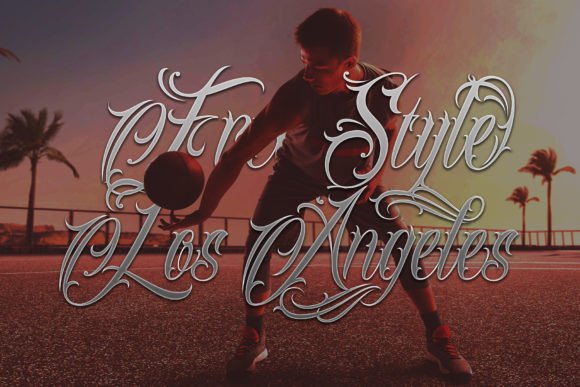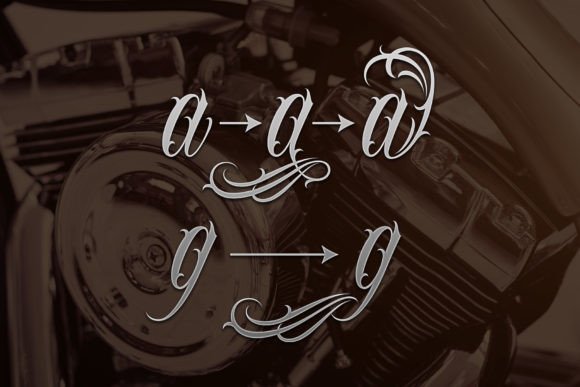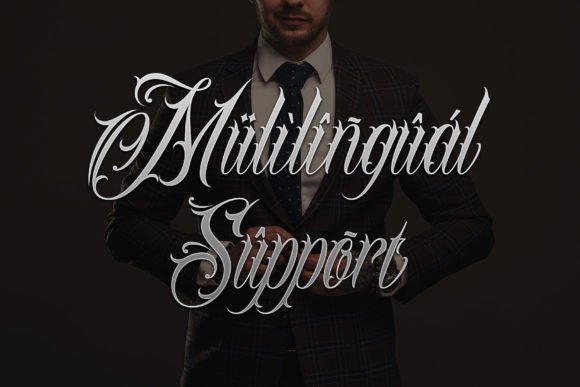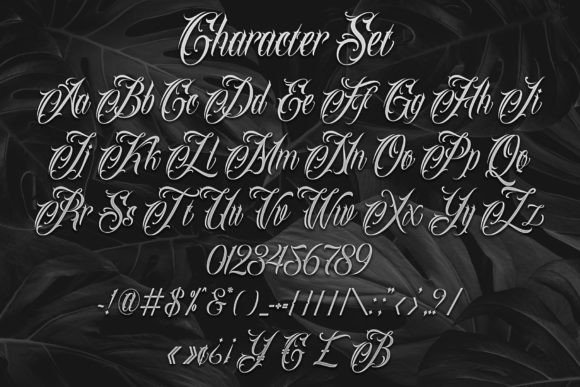
Introduction to Scarlet Holmes Font
Scarlet Holmes is a contemporary blackletter tattoo font that feels right at home on logos, t-shirt designs, posters, flyers, and other brand identity items.
Key Features of Scarlet Holmes Font